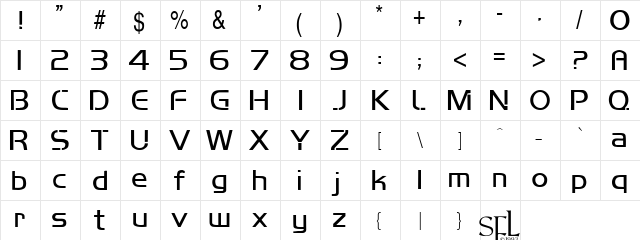
Palomides Regular
Design Context for Palomides Typeface
Palomides offers clean, dependable letterforms without strong stylistic allegiance, making it a practical choice for designers who need flexibility.